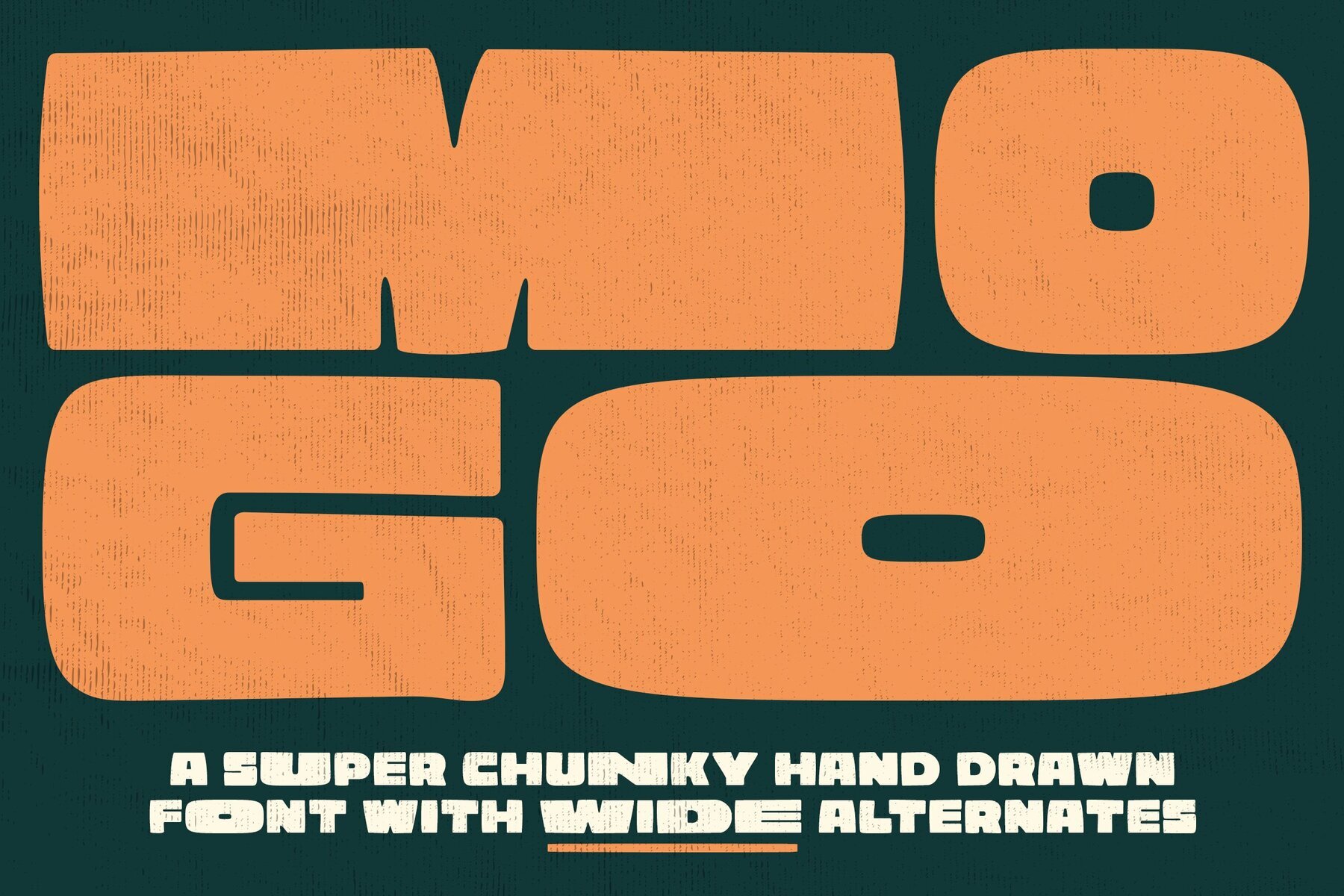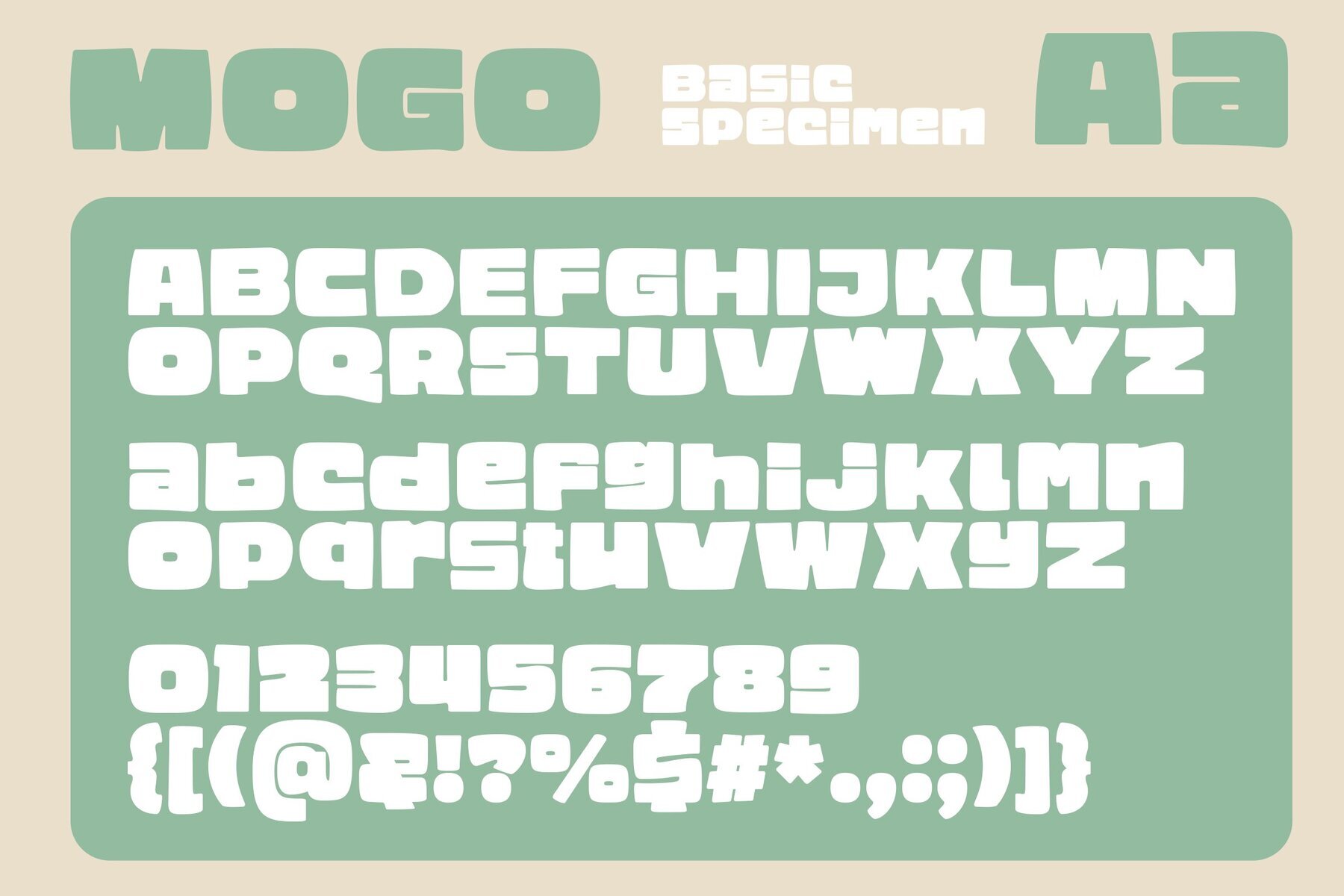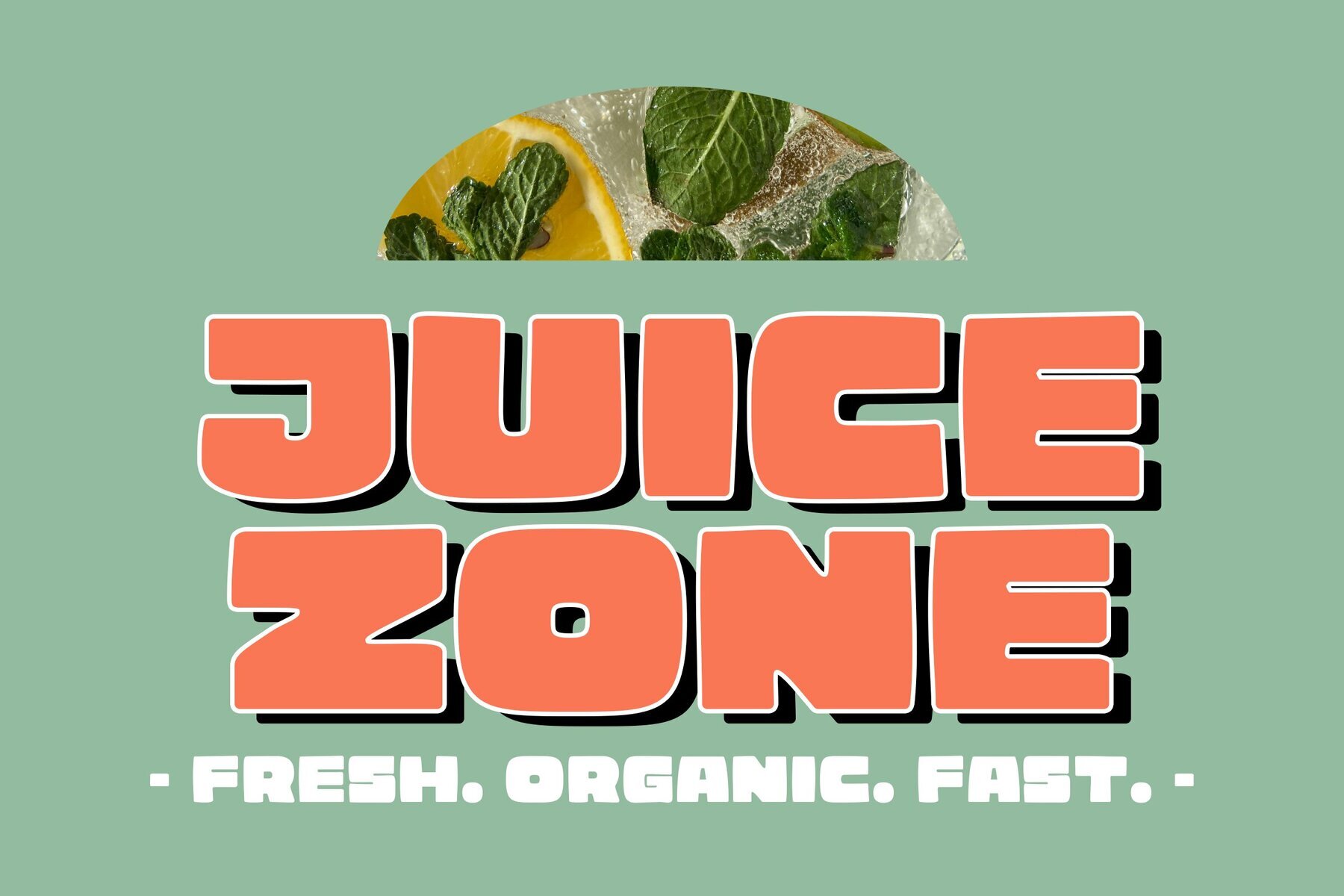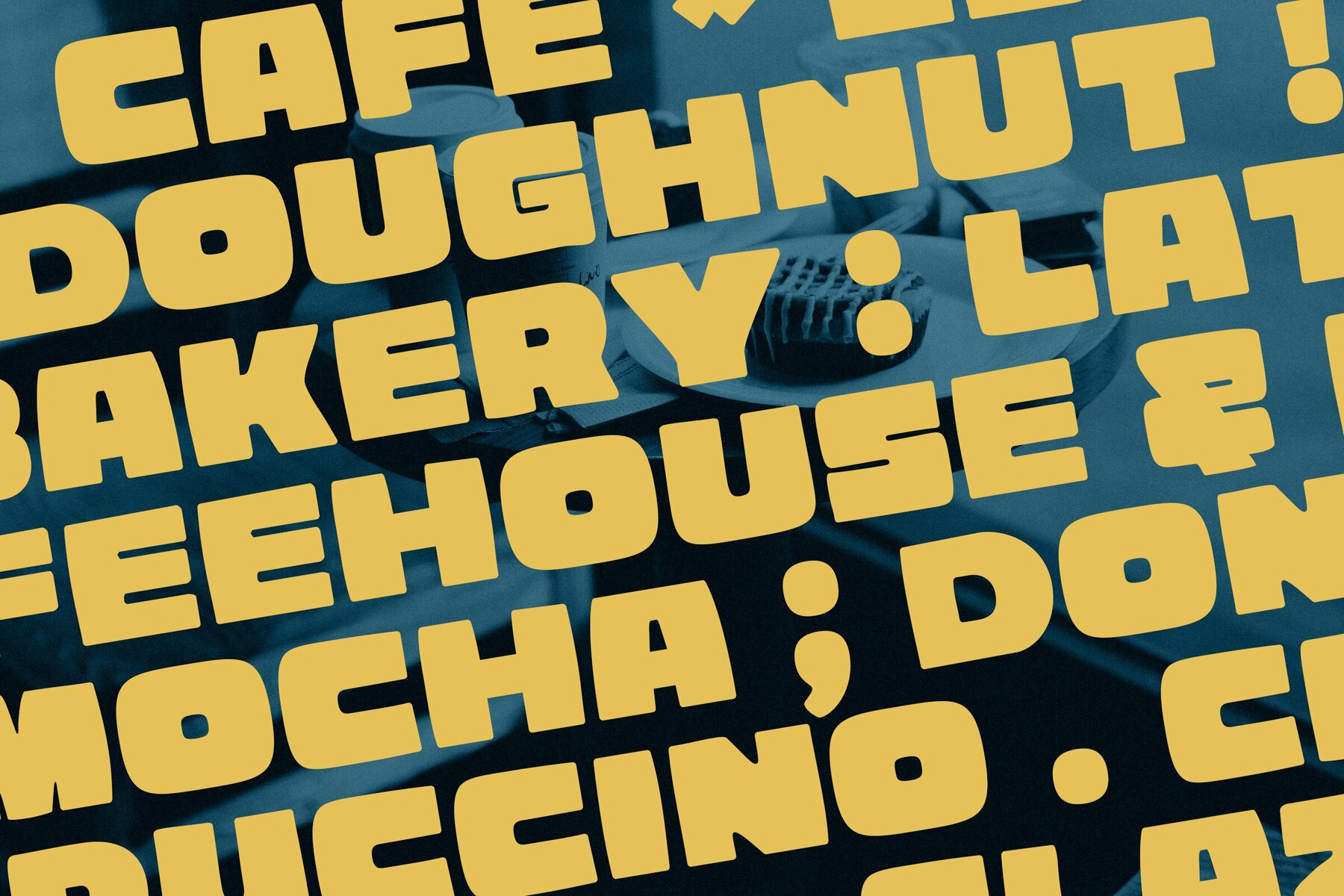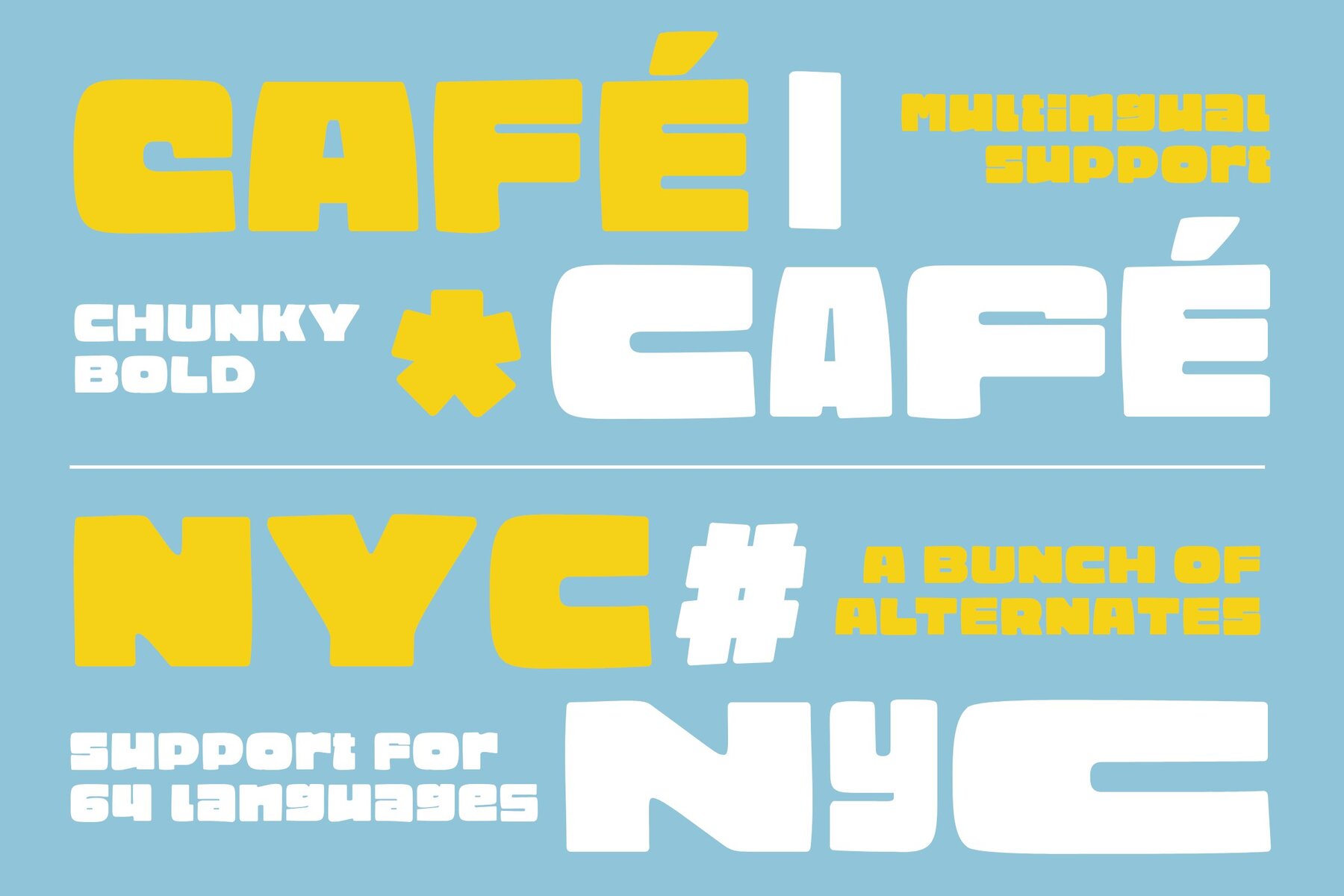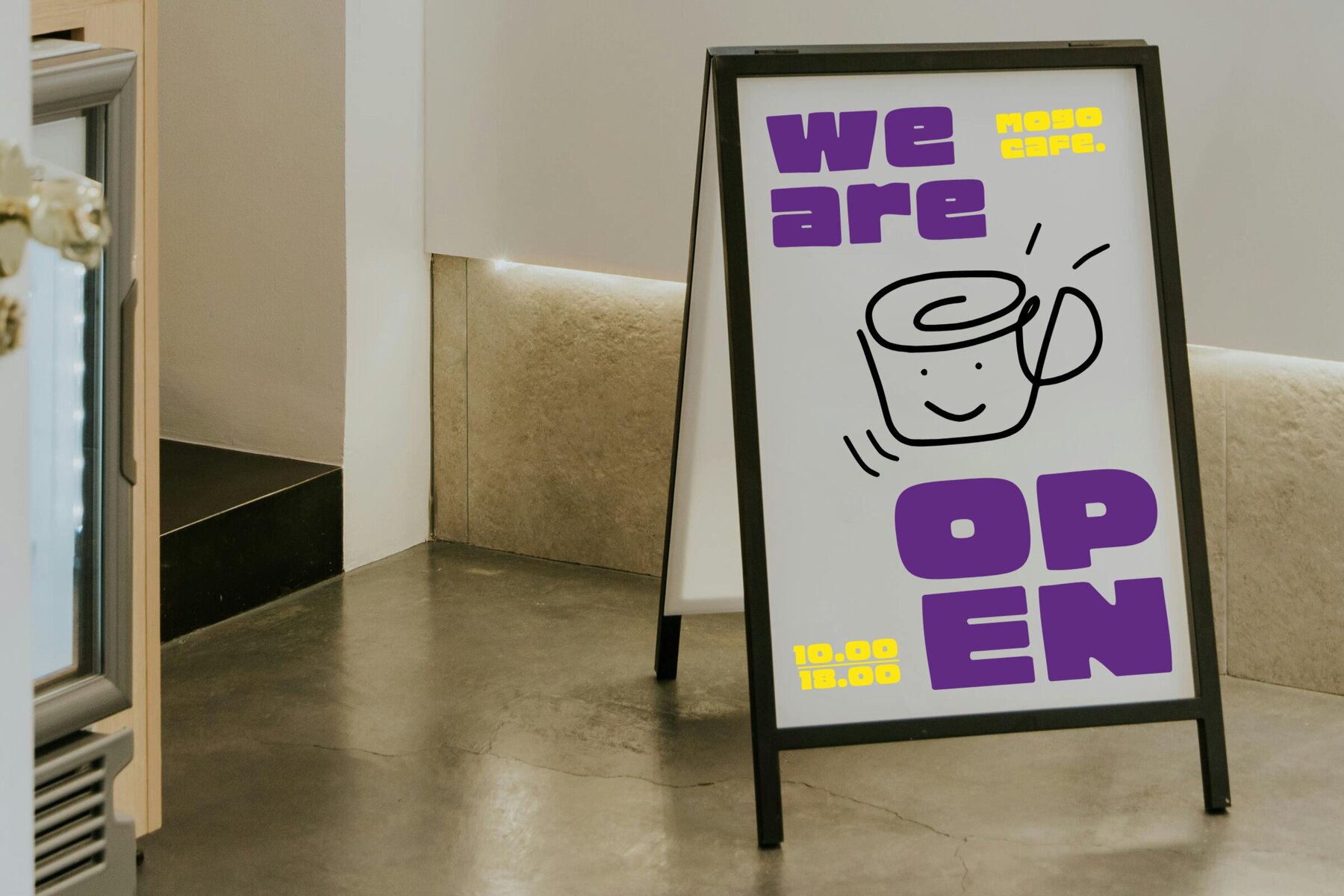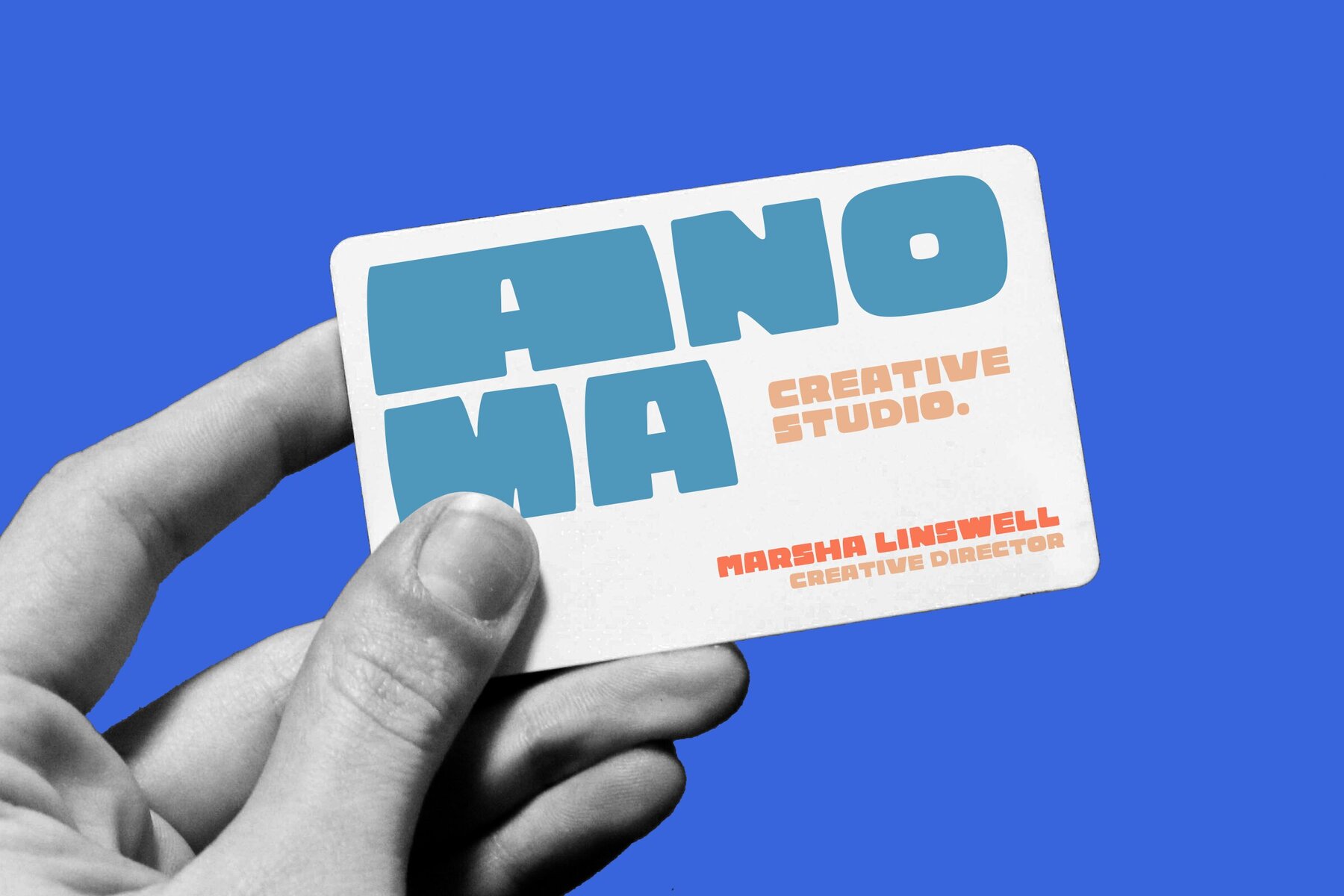
MOGO Font
Mogo Regular
MOGO is a distinctive, bold, hand-drawn typeface characterized by its super chunky and varied character widths. Ideal for design projects that require a touch of exuberance and style, this font set includes three variations of each character, ensuring flexibility for any creative endeavor. The oversized letterforms of MOGO, coupled with its smooth, friendly curves, offer a dynamic personality that is both nostalgic and modern. This duality lends the typeface to a range of uses, connecting effortlessly with audiences who appreciate a vintage aesthetic with contemporary flair. Perfectly suited for posters, packaging, headlines, and branding, MOGO ensures your work stands out. Its robust character offerings coupled with support for OpenType features mean all its special characters are accessible, ready to infuse any project with vibrant energy.MOGO: Playful Typeface With Retro Flair